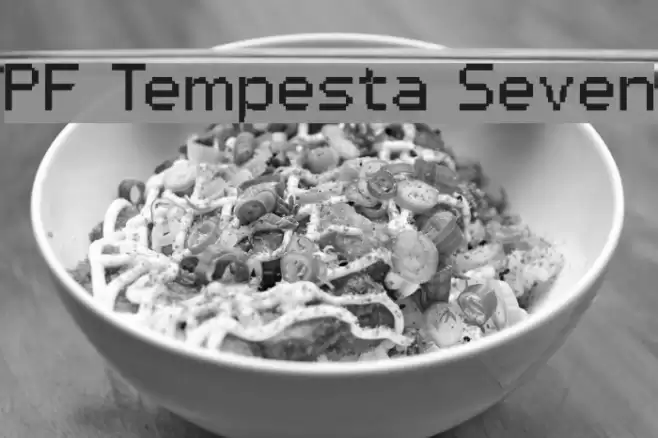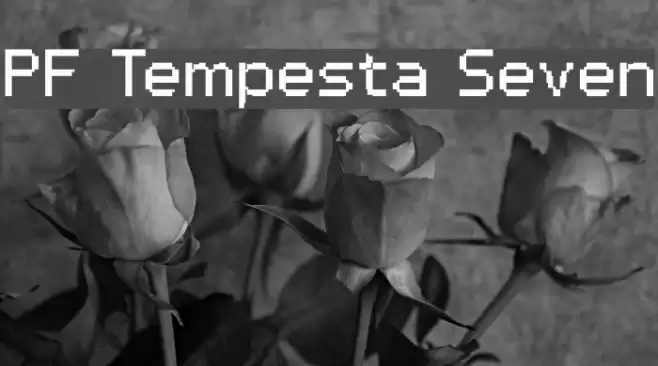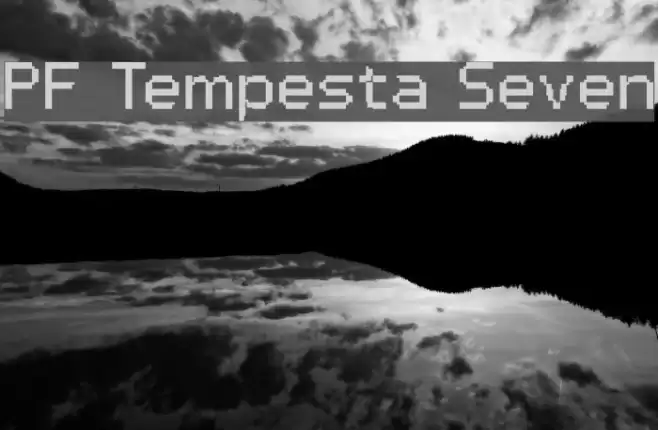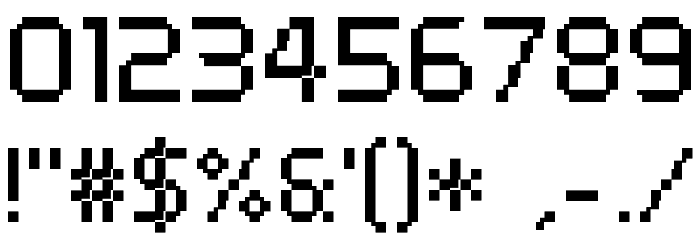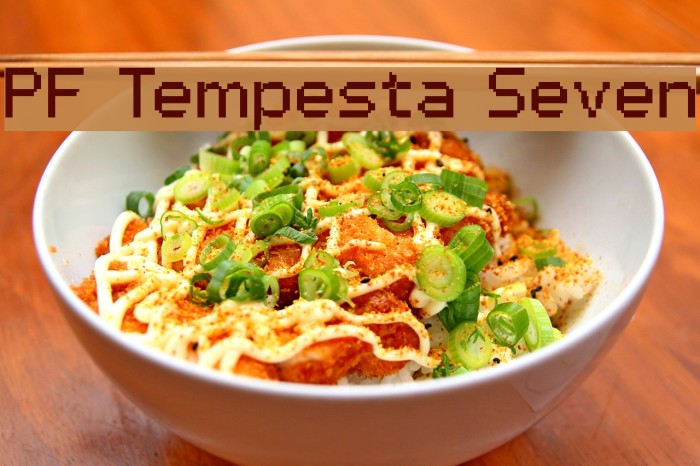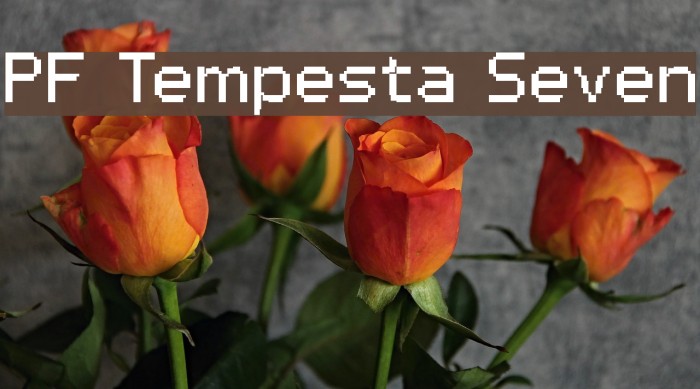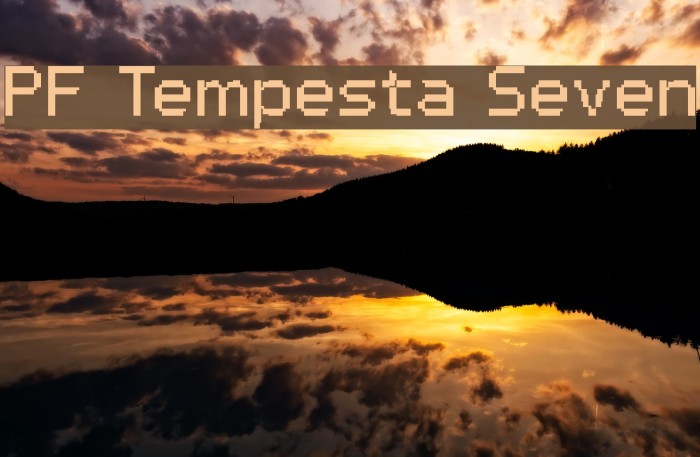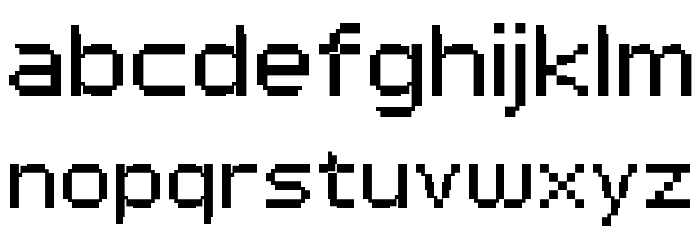
PF Tempesta Seven Font
PF Tempesta Seven Description
This font features a pixelated, blocky design reminiscent of early digital displays and retro video games. Each character is composed of distinct square pixels, giving it a highly geometric and structured appearance. The uppercase and lowercase letters maintain a consistent height, contributing to a uniform look across the text. The numerals and special characters follow the same pixelated style, ensuring visual coherence. This font's design is straightforward yet impactful, making it ideal for projects that require a nostalgic or tech-inspired aesthetic.
A pixelated, blocky font with a retro digital style.
- Proposed Projects: Ideal for retro video game designs, tech-themed posters, digital art projects, and any creative work that aims to evoke a sense of nostalgia for early computing.
- Overall Style: Retro, Digital
- Use Case: Logos, Posters, Digital Art